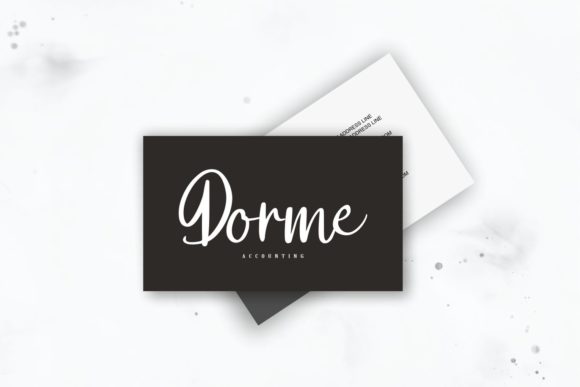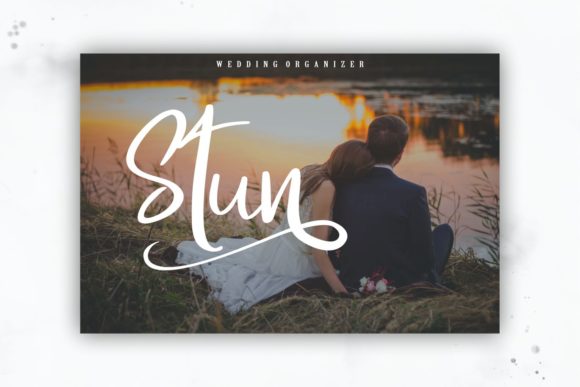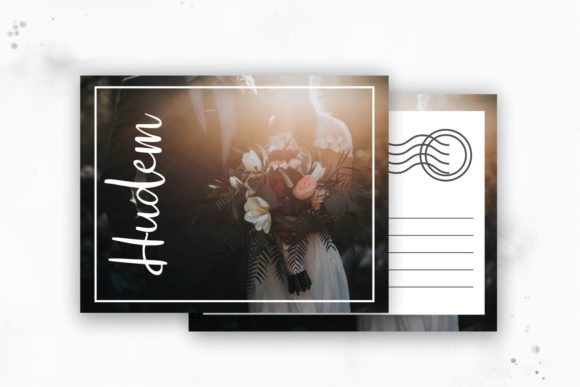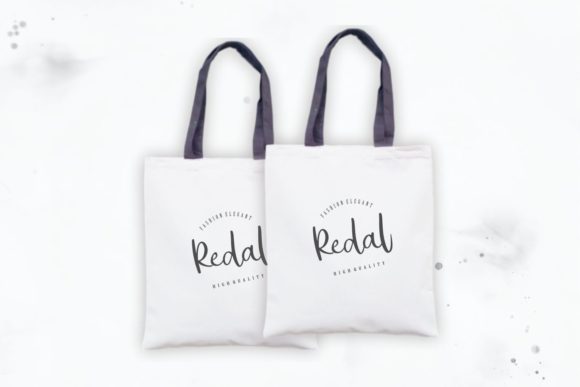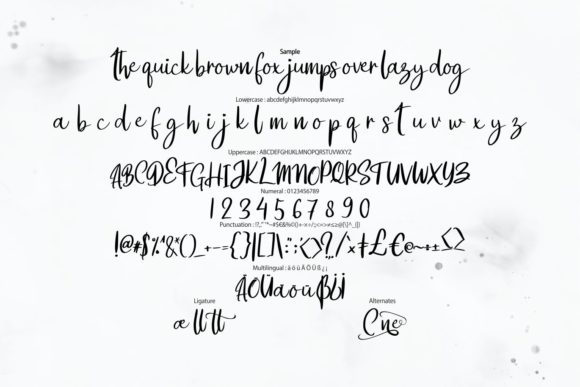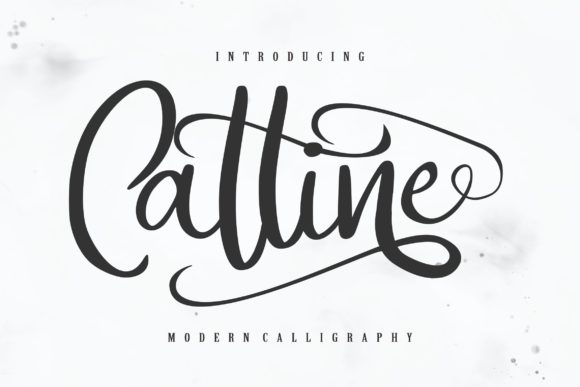
Discover the Charm of Catline Font: Elevate Your Designs with its Unique Character
Are you a designer or crafter looking for a font that can add a touch of personality to your projects? Look no further than Catline Font! With its charming look and feel, Catline is perfectly suited for a wide variety of projects, from creative crafts to digital designs. In this article, we’ll dive into the world of Catline Font and explore its features, benefits, and uses.
What is Catline Font?
Catline Font is a unique and stylish font that is designed to add a touch of whimsy to your designs. Its charming and playful character makes it perfect for projects that require a personal touch. Whether you’re creating a logo, crafting a handmade card, or designing a website, Catline Font is sure to impress.
Key Features of Catline Font
- Unique Character: Catline Font has a distinct and charming personality that sets it apart from other fonts.
- Versatility: Catline is perfectly suited for a wide variety of projects, from digital designs to handmade crafts.
- Easy to Read: Despite its playful character, Catline Font is easy to read and understand, making it perfect for body text and headings.
- Customizable: Catline Font can be customized to fit your project’s needs, from adjusting font sizes to experimenting with different colors and textures.
Benefits of Using Catline Font
So, why choose Catline Font for your projects? Here are just a few benefits of using this charming font:
- Adds Personality: Catline Font adds a touch of personality to your designs, making them stand out from the crowd.
- Enhances Creativity: With its unique character, Catline Font can inspire creativity and help you think outside the box.
- Perfect for Branding: Catline Font is perfect for branding projects, such as logos, business cards, and letterheads.
- Suitable for Crafts: Catline Font is also great for handmade crafts, such as scrapbooking, card making, and journaling.
Using Catline Font in Your Projects
So, how can you use Catline Font in your projects? Here are a few ideas to get you started:
- Logos and Branding: Use Catline Font to create a unique and memorable logo for your business or brand.
- Digital Designs: Add Catline Font to your website, social media graphics, or email templates to give them a personal touch.
- Handmade Crafts: Use Catline Font to add a touch of personality to your handmade crafts, such as scrapbooking, card making, or journaling.
- Signage and Displays: Use Catline Font to create eye-catching signage and displays for your business or event.
Tips and Tricks for Working with Catline Font
Here are a few tips and tricks for working with Catline Font:
- Experiment with Font Sizes: Try adjusting font sizes to create visual interest and hierarchy in your designs.
- Play with Colors and Textures: Experiment with different colors and textures to add depth and personality to your designs.
- Use it in Combination with Other Fonts: Try pairing Catline Font with other fonts to create a unique and interesting contrast.
In conclusion, Catline Font is a charming and versatile font that is perfect for a wide variety of projects. With its unique character, ease of use, and customization options, Catline Font is sure to become a favorite among designers and crafters. So why not give it a try and fall in love with its charming look and feel?